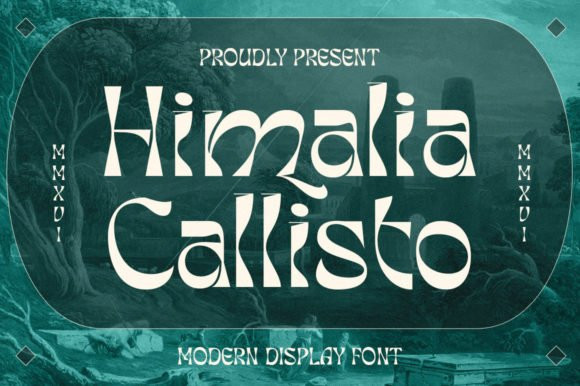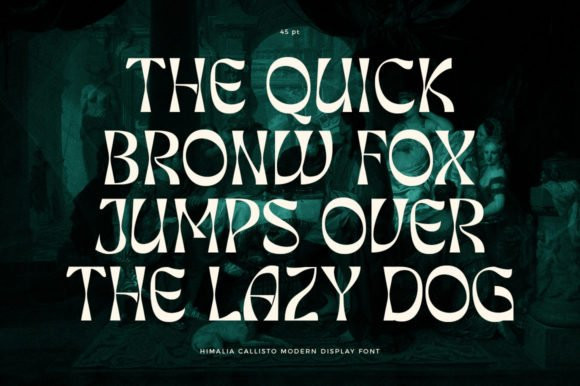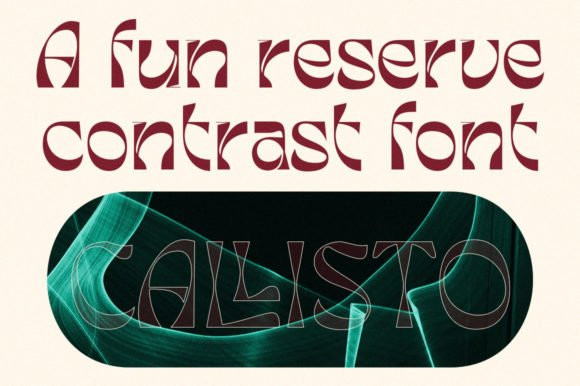
Himalia Callisto Font
Himalia Callisto is a whimsical and cool display font. Whatever the topic, this font will be a wonderful asset to your font library, as it has the potential to enhance any creation.